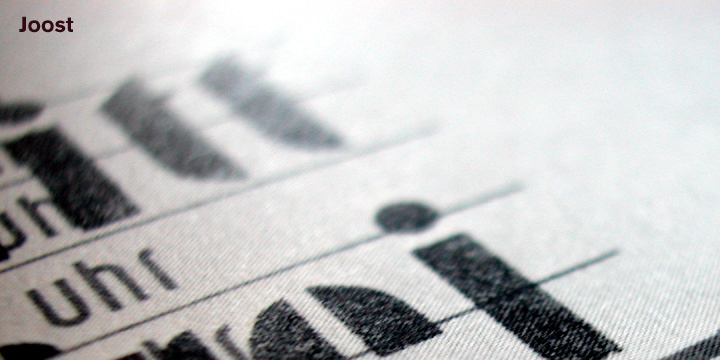
Joost is a typeface created by José Manuel Urós and published by Type-Ø-Tones. This font is a new version of the old font Joost. It has some improvements regarding of alternate glyphs for M, N, Ñ and W characters. You must have it!
Foundry: Type-Ø-Tones
Released: 1995-2010